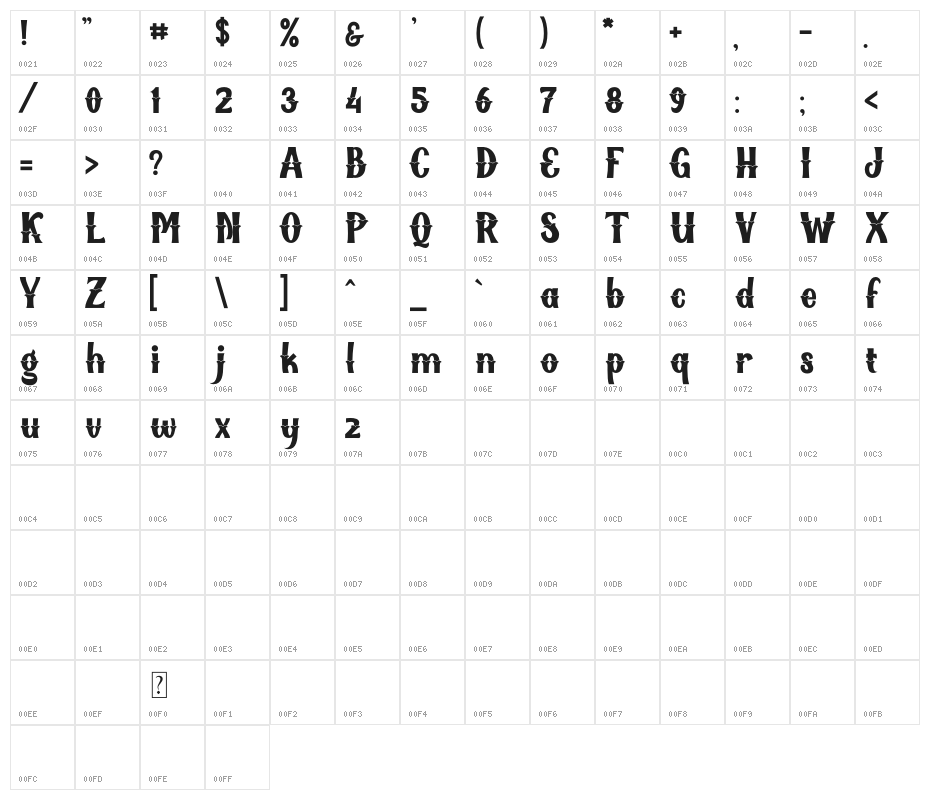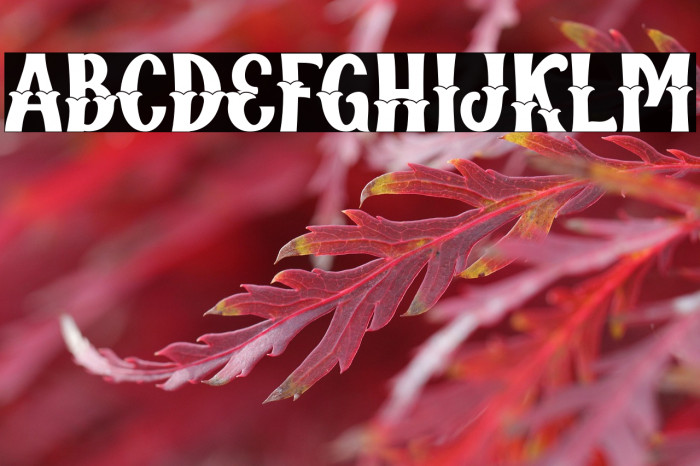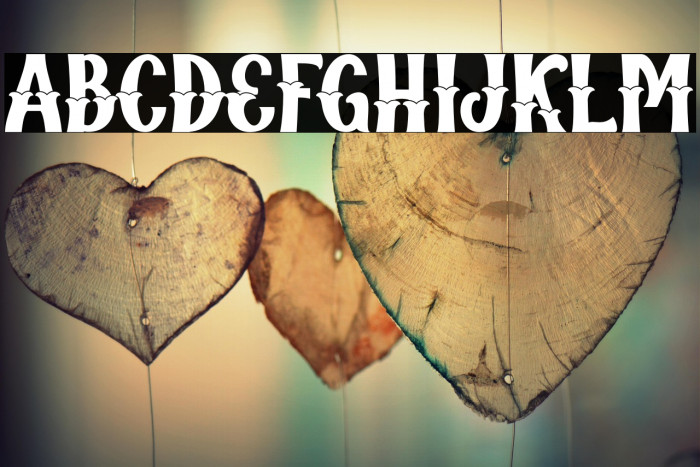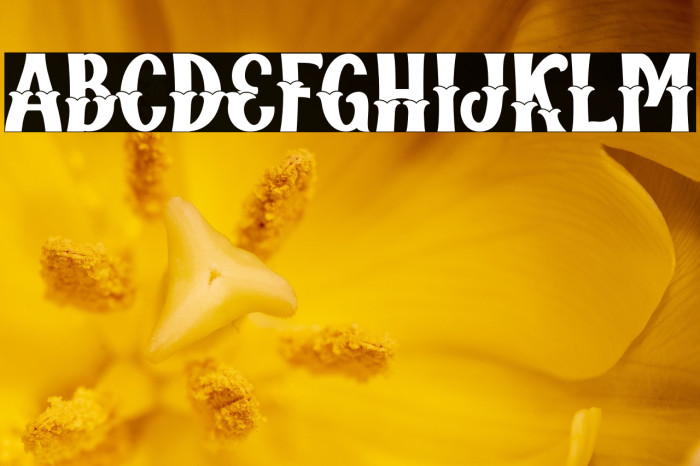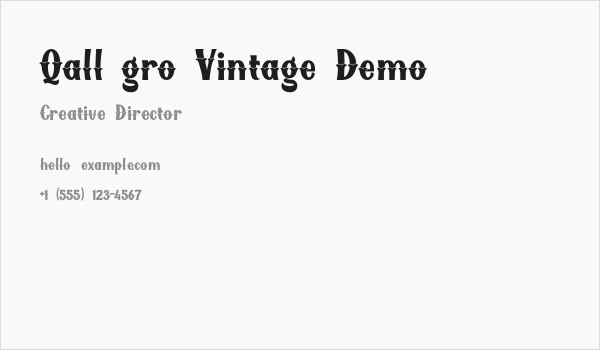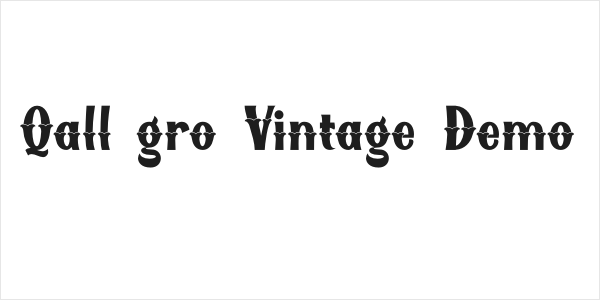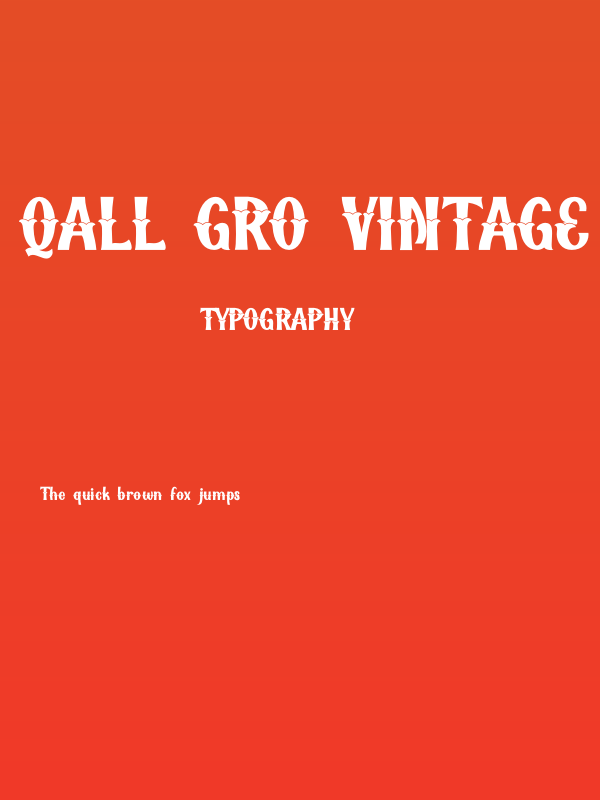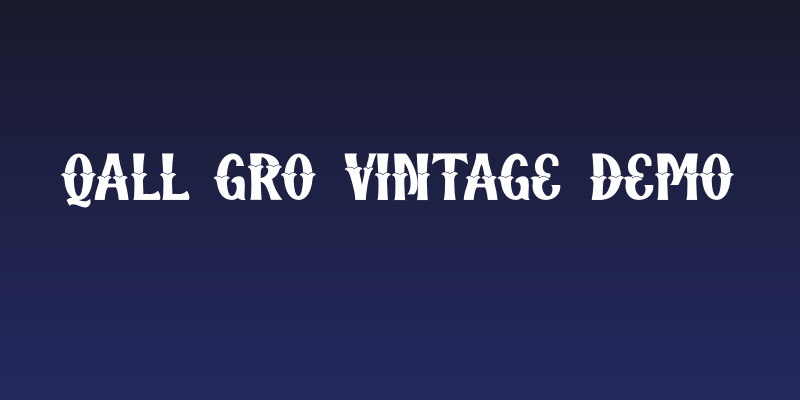
Qallégro Vintage Demo Font
Qallégro Vintage Demo Description
This font features a bold and decorative style with a vintage flair. The uppercase and lowercase letters are designed with unique, playful curves and flourishes that give it a distinctive character. The numbers and special characters maintain this decorative theme, making it suitable for eye-catching designs. The font's bold weight and high contrast between thick and thin strokes enhance its visual impact, making it ideal for projects that require a strong, artistic statement. The character spacing is normal, ensuring readability while maintaining its decorative appeal.
| Overall Style | Vintage, Decorative |
| Proposed Projects | Ideal for vintage-themed posters, logos, branding, and artistic headlines. |